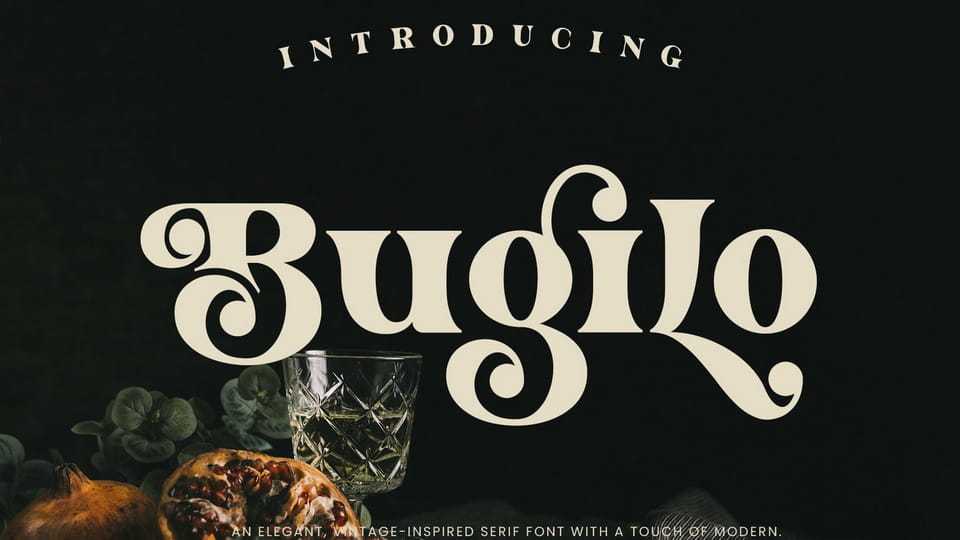
Download Bugilo font, a bold modern typeface that feels playfully nostalgic and delivers an incredible vintage aesthetic. Use this serif font to add that special retro touch to any design idea you can think of!
Designer: Saystudio